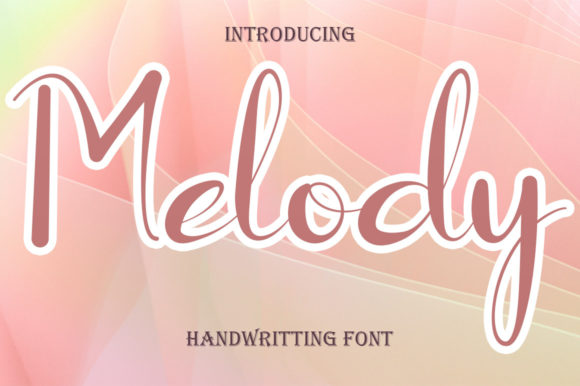
About Melody Font
Melody is a handwritten script font that exudes elegance and tenderness in every character. This font is made especially for those who need a beautiful and refreshing look for various designs.